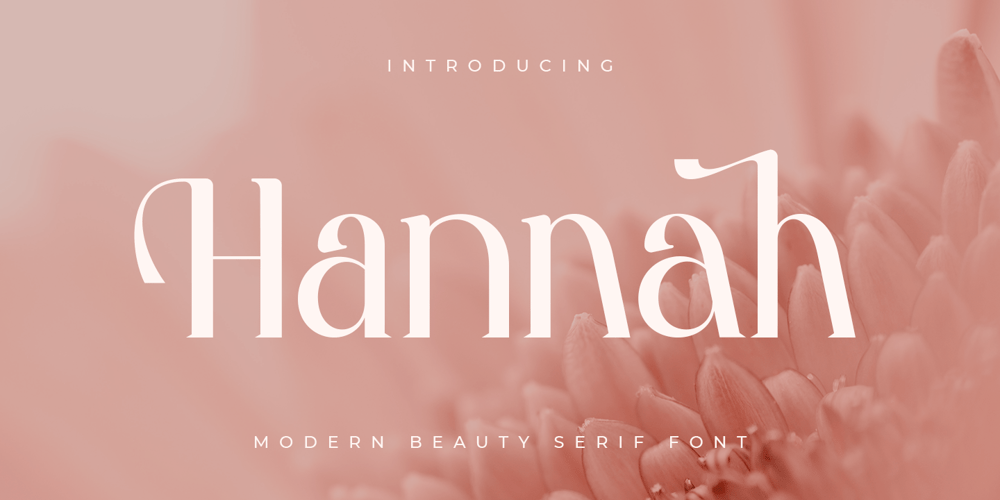
Hannah Style Font Family was designed by Zamroni Hamzah and published by Sensatype Studio. Hannah Style contains 1 styles and family package options. A new Serif font that we created special for logo and branding needs, with extra unique shape that will add your brand value. I. And specially for Hannah font, We prepared any alternate characters to help you create unlimited variations for your creative needs specially for logotype or wordmark.Hannah Cute Serif font ready with: Any options to get creative variations Preview as a inspirations that you can do with Hannah font Ready with Lowercase and Uppercase characters Wish you enjoy our font. ๐